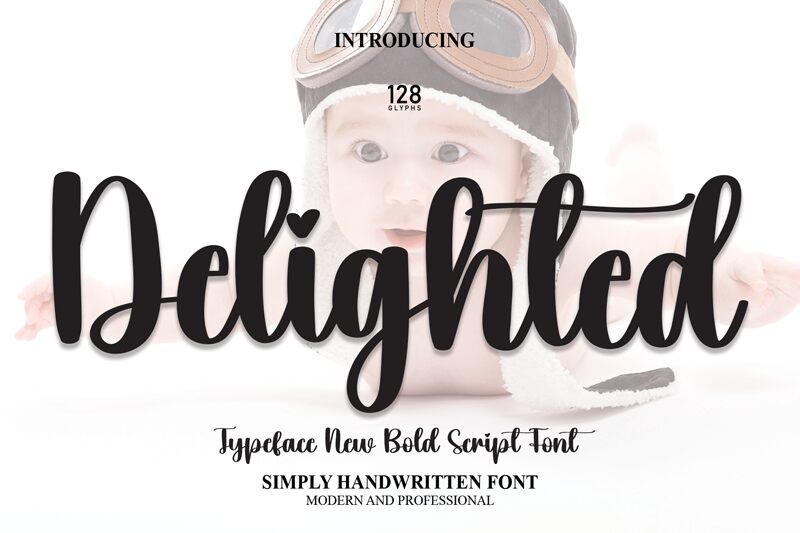
Delighted
Delighted, a charming creation by Scratchones, is a semi-bold font that exudes the whimsy of cute calligraphy. Its fluid strokes and playful curves make it perfect for projects that aim to capture joy and delight.
Use Delighted to add a touch of sweetness to children's books, greeting cards, or product packaging. Its versatility allows it to shine in branding designs for feminine beauty products or trendy fashion boutiques.
With its delightful personality, this font will surely bring smiles and captivate hearts in any creative endeavor.
Rhe latest style letters are perfect for wall displays, wedding invitations, social media post logos, advertisements, product packaging, product designs, labels, photography, watermarks, invitations, stationery, and any project that requires taste handwriting.